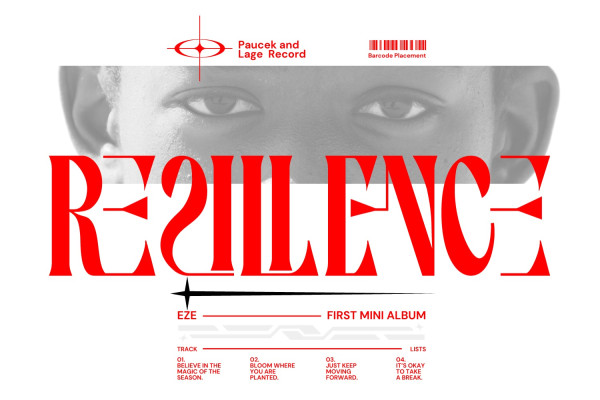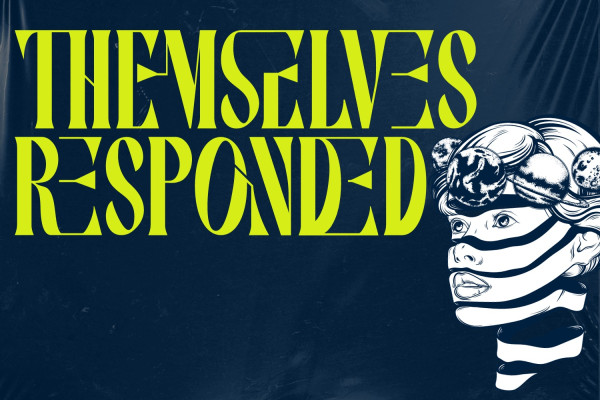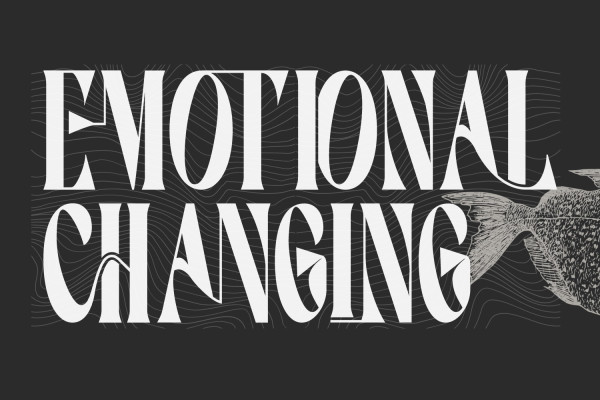
Emotional Changing Font
Emotional Changing Font is a condensed, high contrast display typeface best suited for headlines and short paragraphs set large. This new condensed high contrast and heavy weight serif font is based on expansion giving a sense of self confidence. A complete set of ligatures and stylistic alternates is included, this will help the designer to customize and give a special look to any layout.
Emotional Changing was built with OpenType features and includes 100 ligatures, alternate, numbers, punctuation, and it also supports other languages.
AC AD AL AN AR AS AT AU AV BE CA CE CH CO CT DE DI EA EC ED EE EL EM EN EP ER ES ET FE FO FR GE HA HE HI HO IE IC IL IN IO IR IS IT JU KE LA LE LI LL LO LY MA ME MI NC ND NE NG NO NT NS OC OF OM ON OO OP OR OT OU OW PA PR RA RD RE RI RO RS RT SE SH SI SO SS ST TA TE TH TI TO TR TT UM UN UR VE WI WO